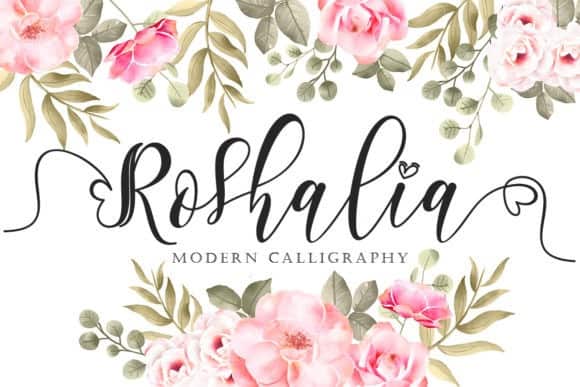
Roshalia Calligraphy Font
Roshalia Calligraphy Font – a calligraphy script font with ligatures and swashes. Made from font designer named yogaletter6. It’s a romantic and sweet calligraphy typeface with characters that dance along the baseline. It has a casual, yet elegant touch.This font is PUA encoded which means you can access all of the glyphs and swashes with ease!